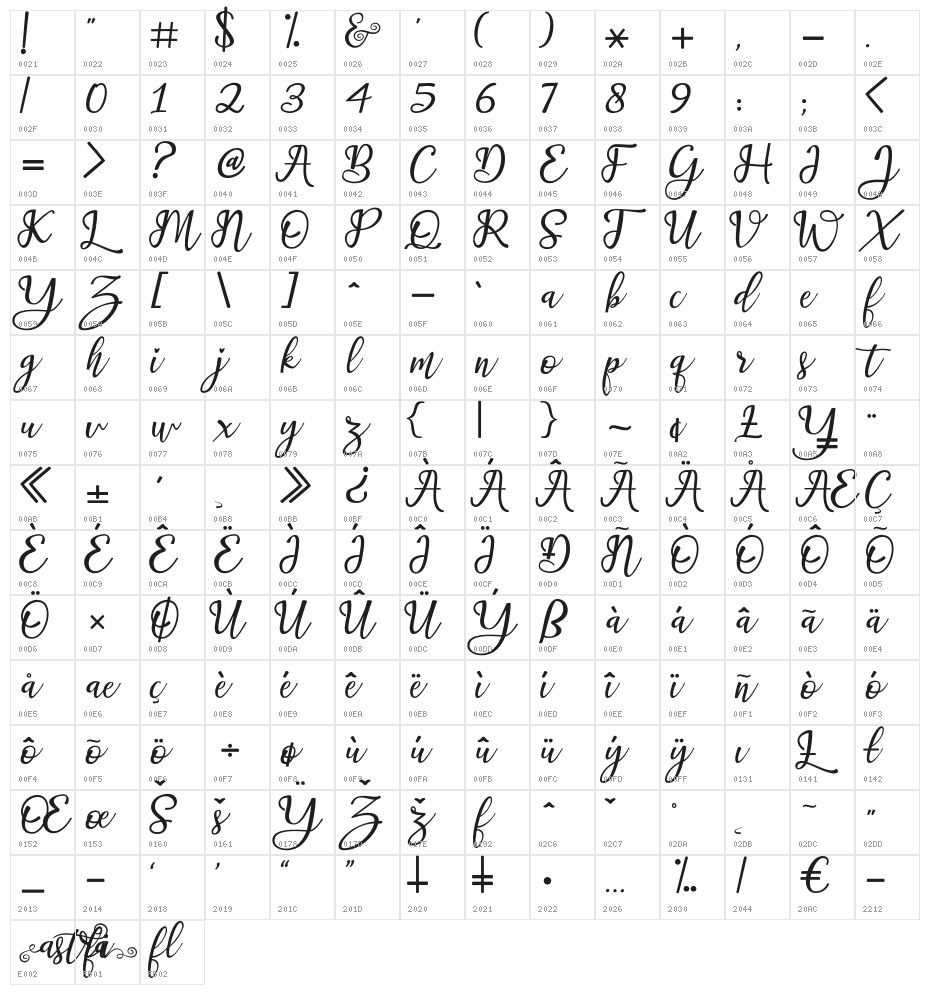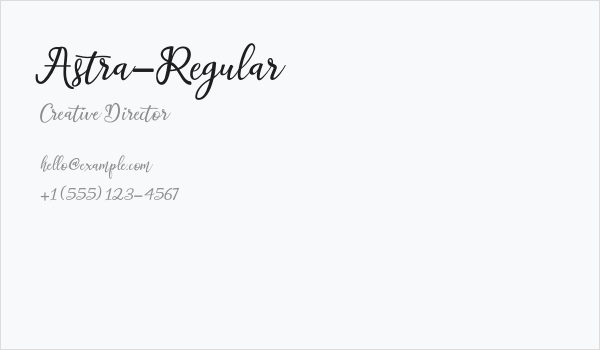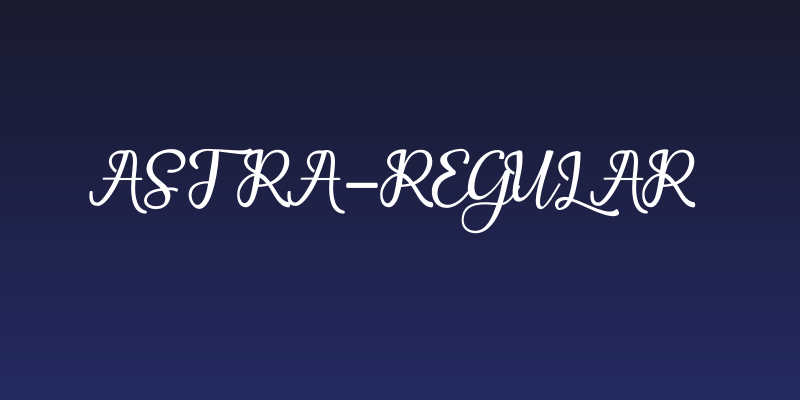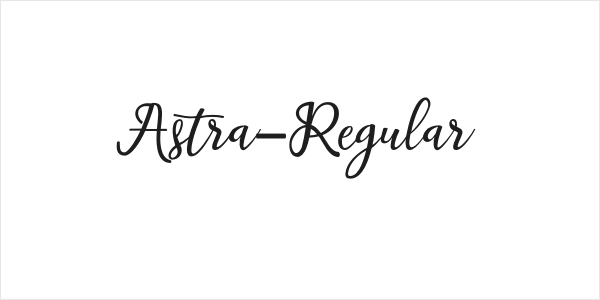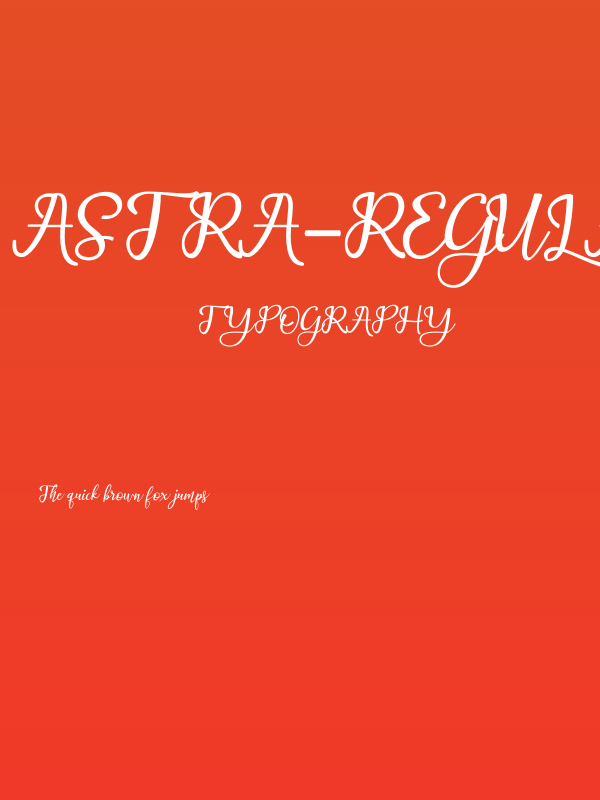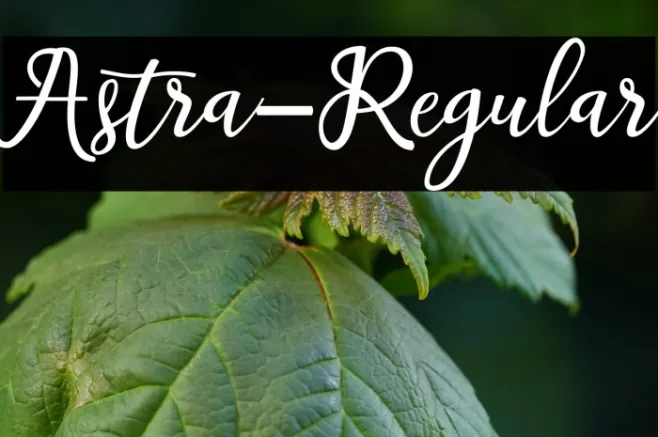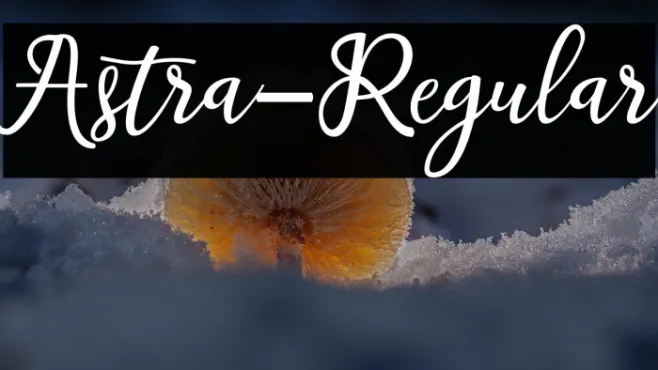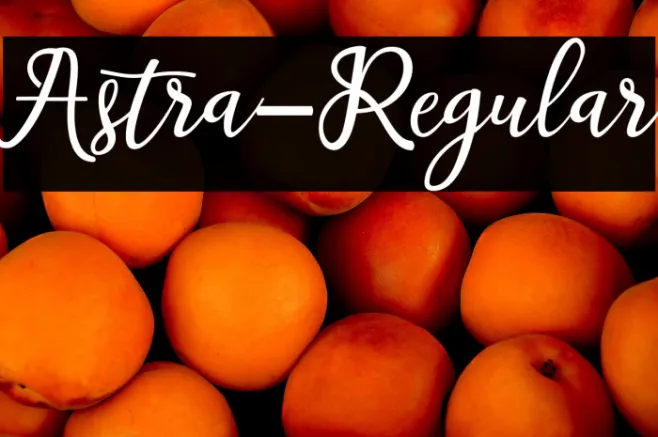
Astra-Regular Font
Astra-Regular Description
This elegant script font features a flowing, cursive style with smooth, rounded edges and a graceful appearance. The uppercase letters are characterized by their sweeping curves and loops, creating a sense of movement and fluidity. The lowercase letters maintain a consistent style, with slightly exaggerated ascenders and descenders that add to the font's decorative nature. The numerals are designed to match the overall aesthetic, with a similar emphasis on curves and fluid lines. Special characters are crafted with the same attention to detail, ensuring a cohesive look across all glyphs. This font is perfect for projects that require a touch of sophistication and elegance.